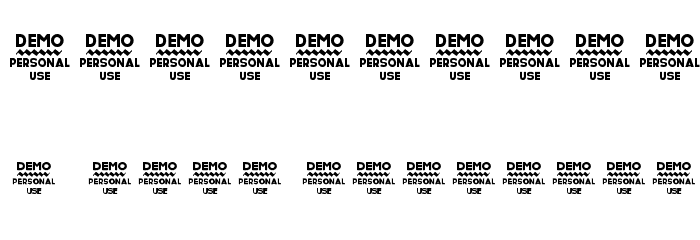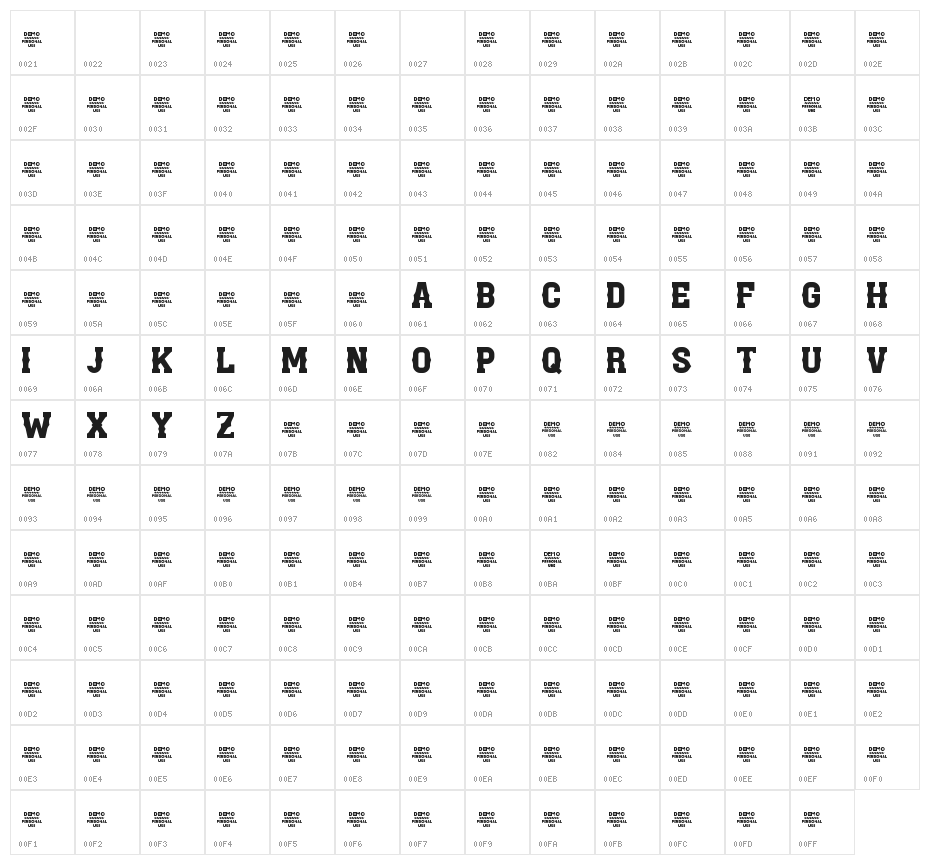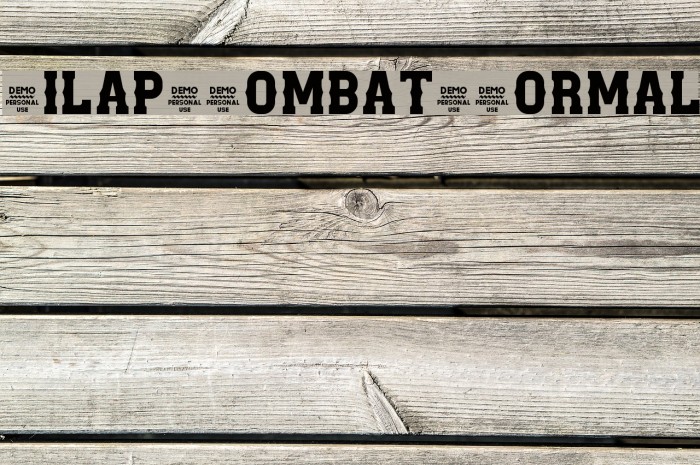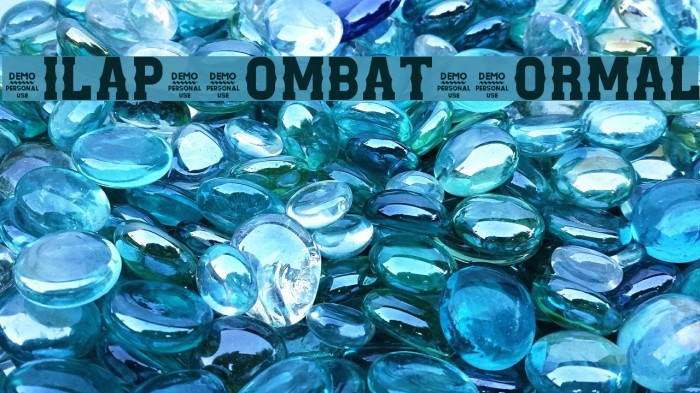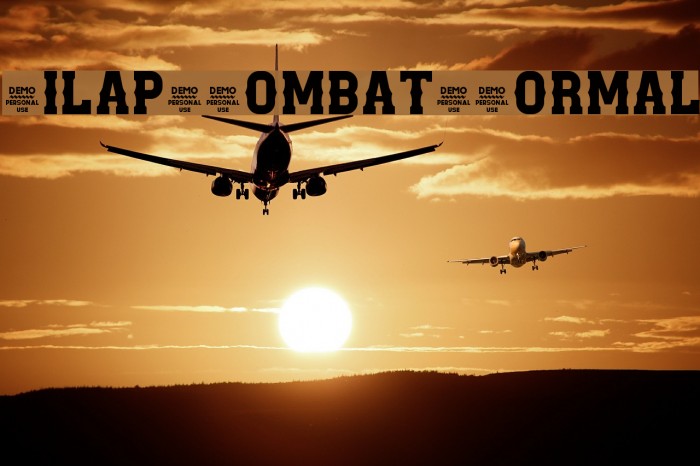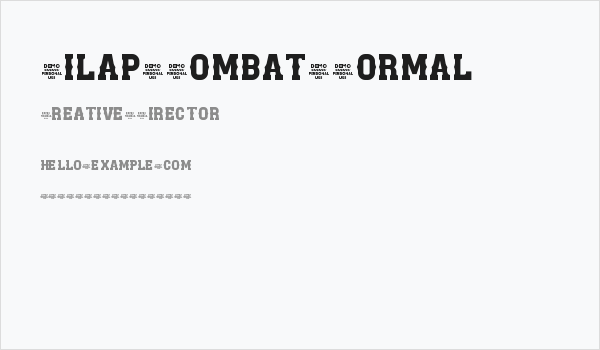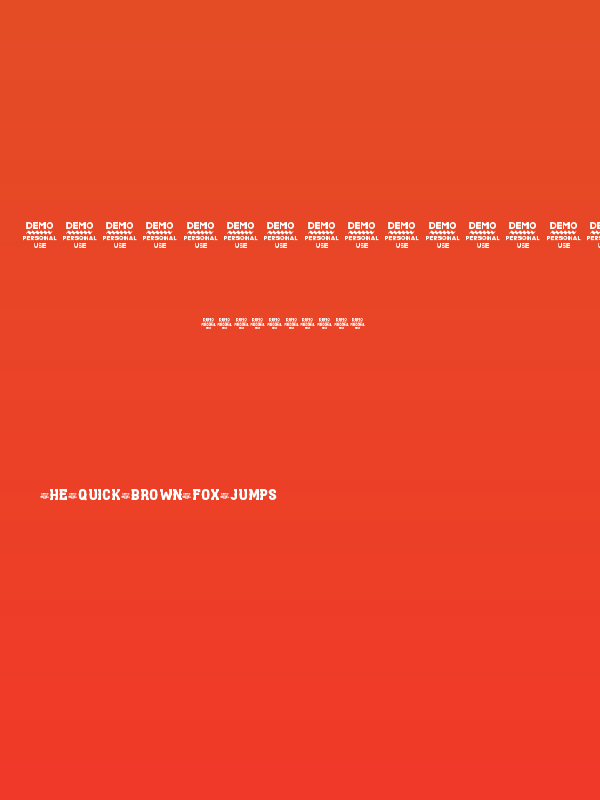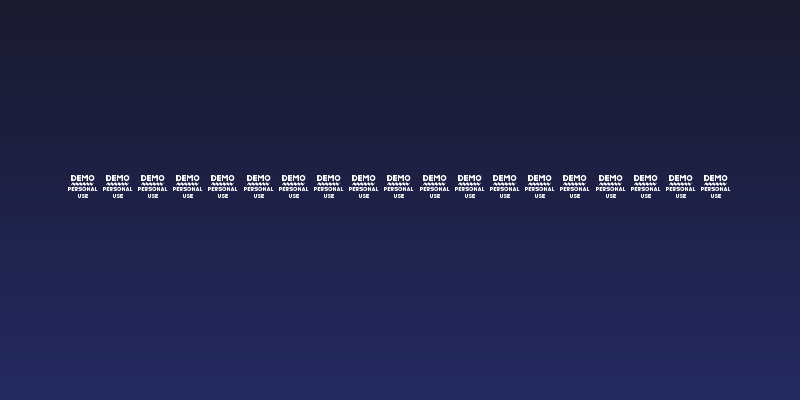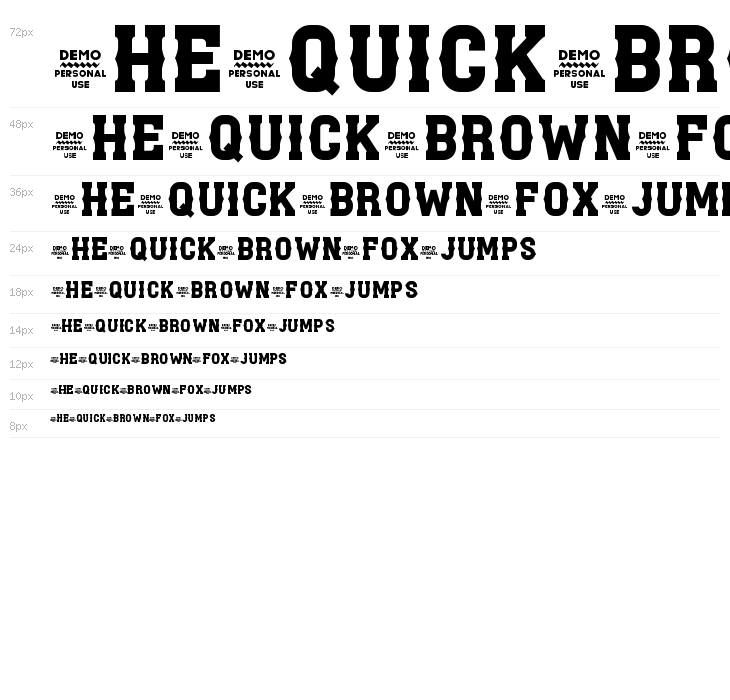
Zilap Combat Normal Font
Zilap Combat Normal Description
This font features a bold, impactful design with strong, thick strokes that convey a sense of power and authority. The uppercase letters are robust and commanding, making them ideal for attention-grabbing headlines or titles. The design is reminiscent of classic Western or military styles, with a modern twist that adds versatility. The characters are well-defined with a slight decorative flair, particularly noticeable in the serifs and the unique cutouts within the strokes. This font is perfect for projects that require a bold statement or a vintage yet contemporary feel.
| Proposed Projects | Ideal for posters, logos, branding, and any design needing a strong, authoritative presence. |